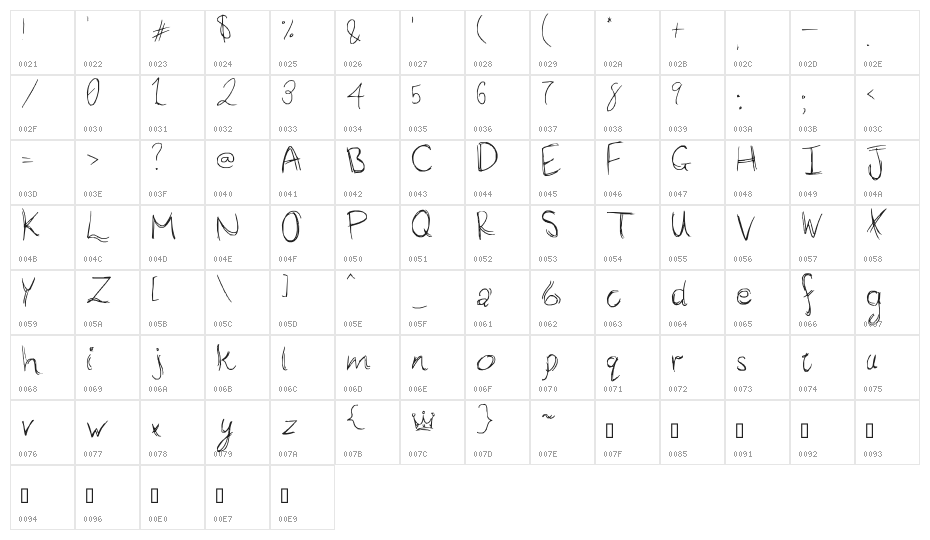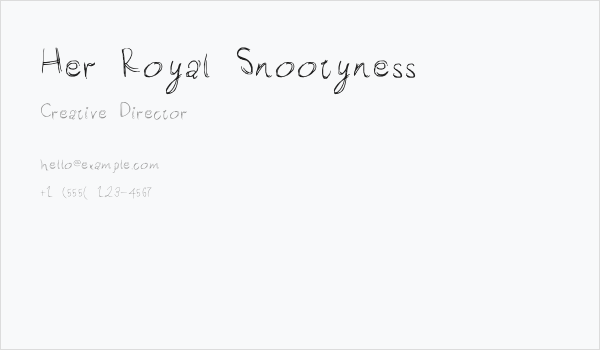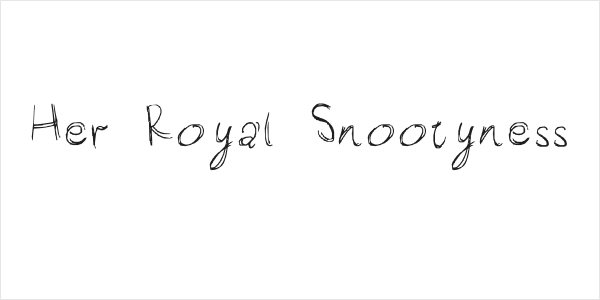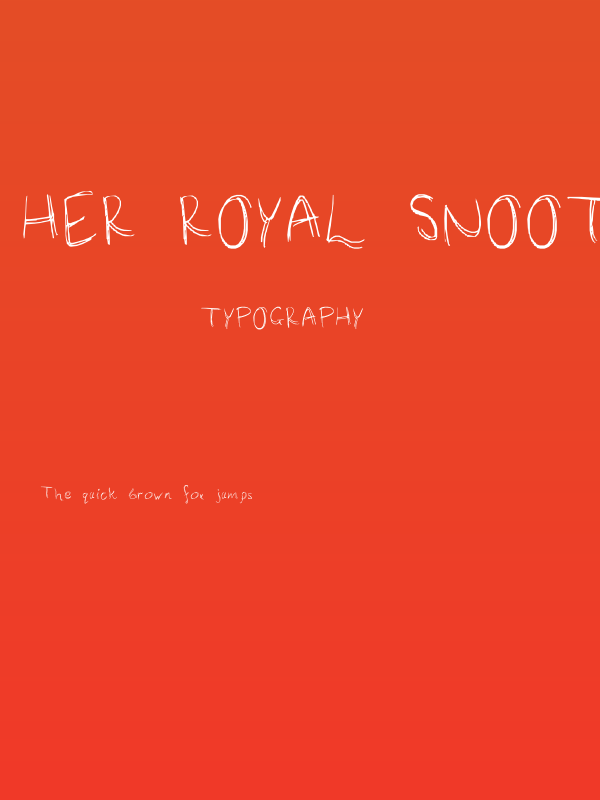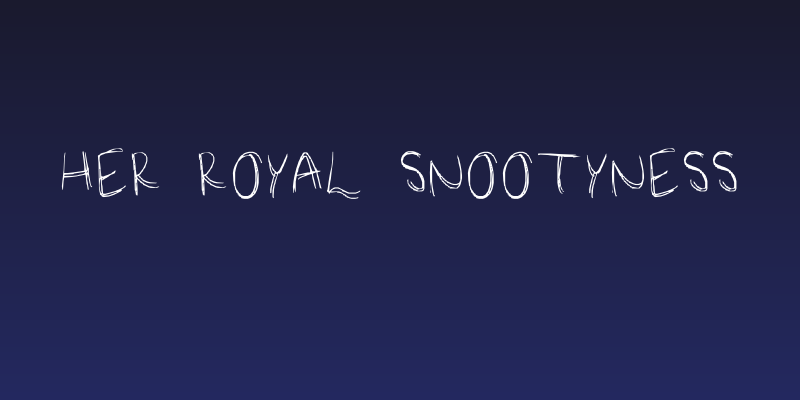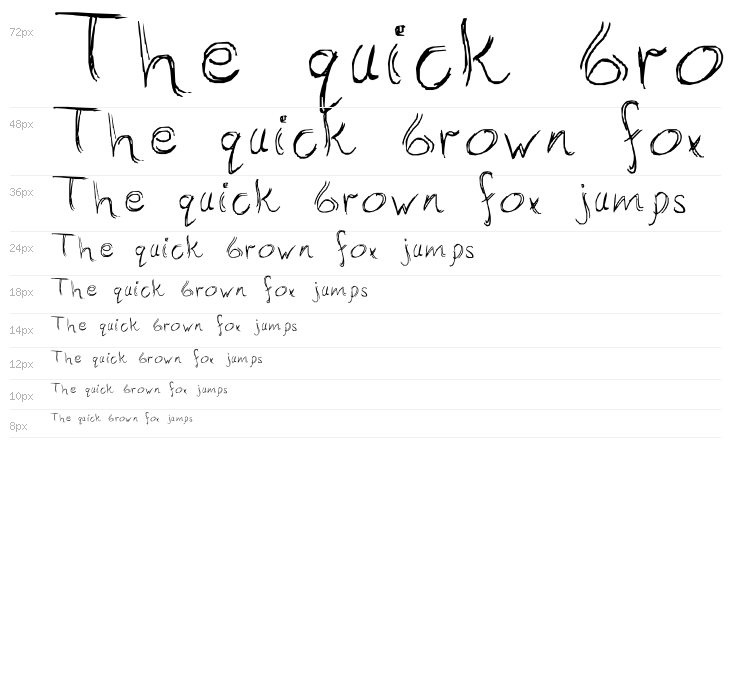
Her Royal Snootyness Font
Her Royal Snootyness Description
This font exhibits a whimsical and playful handwritten style, characterized by its irregular and dynamic strokes. Each letter appears to have been drawn with a quick, expressive motion, giving the font a lively and energetic feel. The uppercase letters are bold and slightly exaggerated, while the lowercase letters maintain a consistent flow with occasional loops and curls. The numbers and special characters follow the same energetic style, adding to the overall cohesive look. This font's unique personality makes it stand out, offering a sense of creativity and spontaneity.